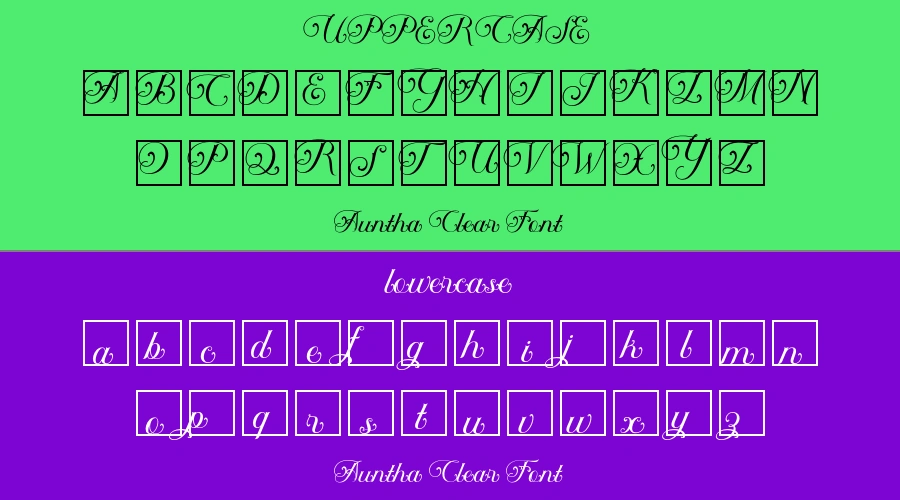
About Auntha Clear Font
Auntha Clear Font stands out for its distinctive combination of teardrop terminals and classic beauty. Ideal for mobile applications, it provides the professionalism and design innovation that professional projects demand. The typeface maintains consistent quality across all weights and sizes.
Key features include refined calligraphic strokes and practical traditional figures, enhancing typographic expression. In creative titles applications, Auntha Clear Font demonstrates exceptional detail preservation. The stroke contrast and artistic merit contribute to its distinctive character and professional appeal.